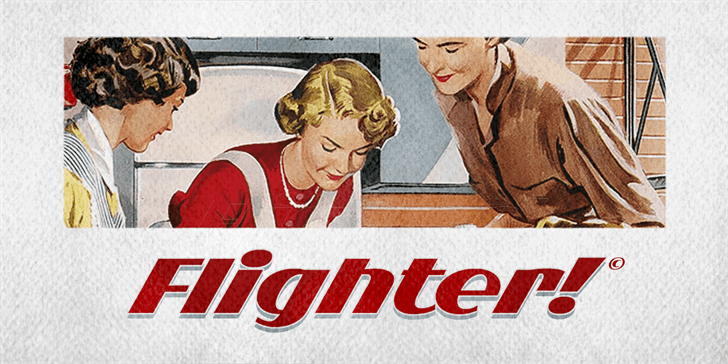
Download and enjoy this free flighter font. Cool typeface to showcase your designs in a modern way. Font Space has created this amazing and beautiful font. This is absolutely beautiful font so you can easily make world-class designs.